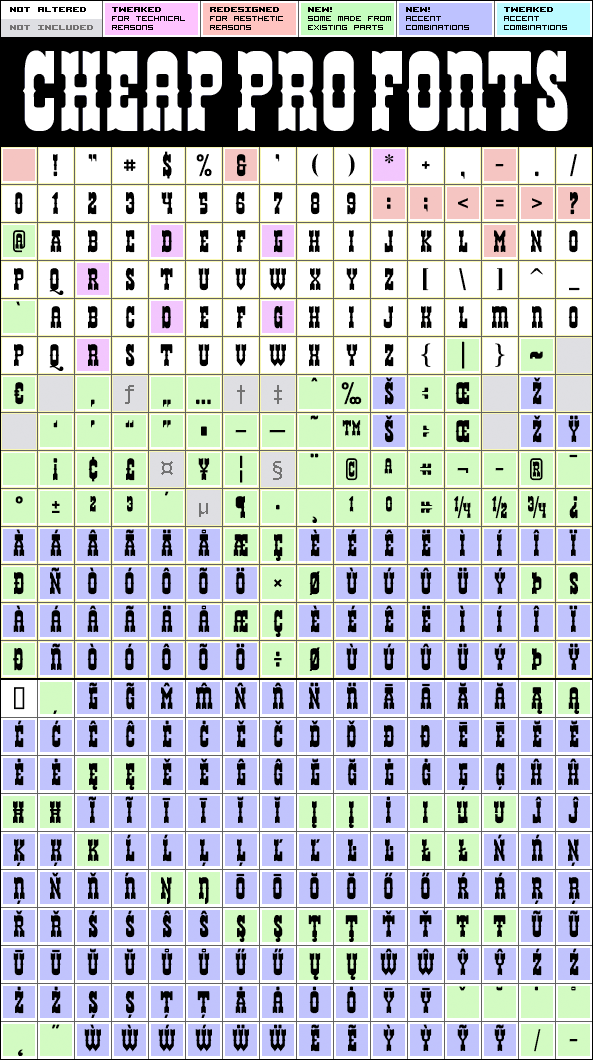
Helldorado Pro
Helldorado Pro by Levente Halmos
Levente Halmos
371 glyphs!
(91 in original)
93 class kernpairs
= 6692 kerning pairs
(none in original)
A classic "wild west" or circus type font - perfect for oldstyle posters and anything needing an antiquated look. I have switched a few letters around, and made the uppercase M narrower - and then kerned it and expanded the character set. "Howdy pardiner!" ;)
Helldorado Pro is a professionally reworked font that contains an extended character set for setting text in 65 languages requiring more than the basic A-Z!